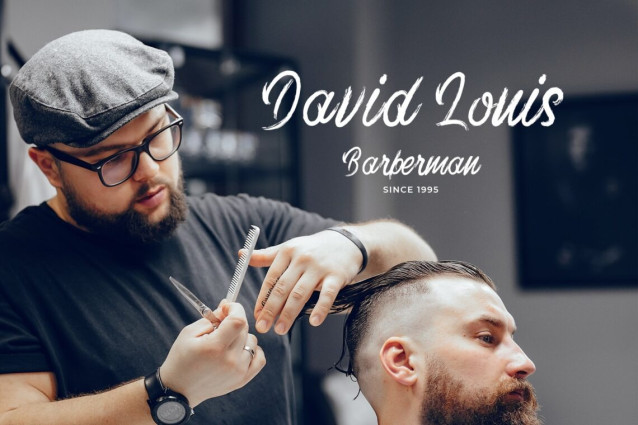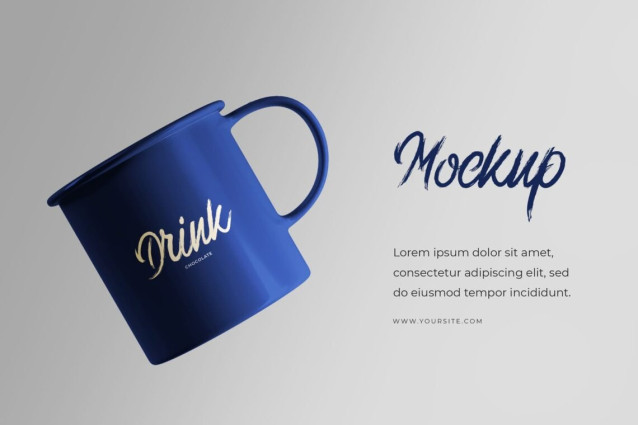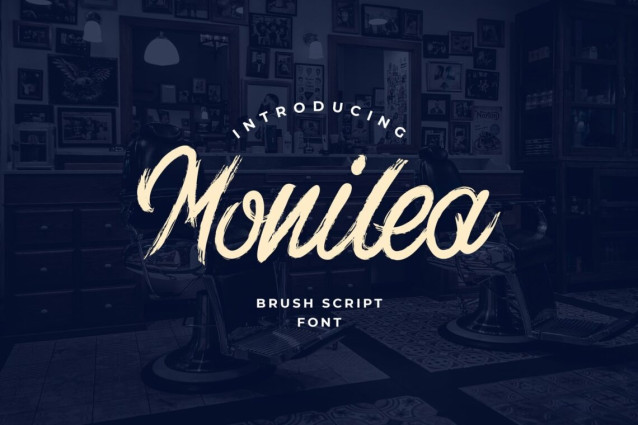
Monilea Brush Handwritten Font
Monilea Brush Handwritten is a type of hand brush calligraphy font. In combination and design, this font looks challenging and natural-looking paint. It has thick typography but is still aesthetic and harmonious. Perfect for branding, logotype, photography, merchandise, watermarks, quotes, blog headers, T-shirts, product packaging, invitation, magazine, quotes, flyers, posters, etc.